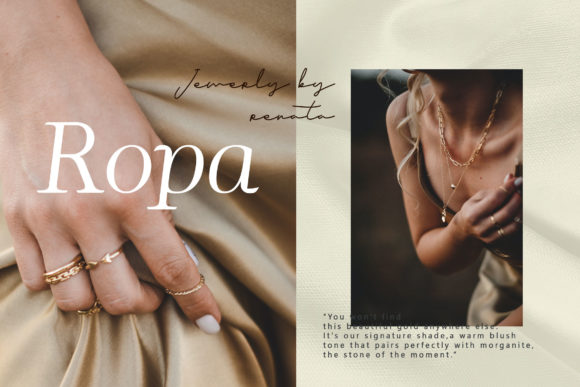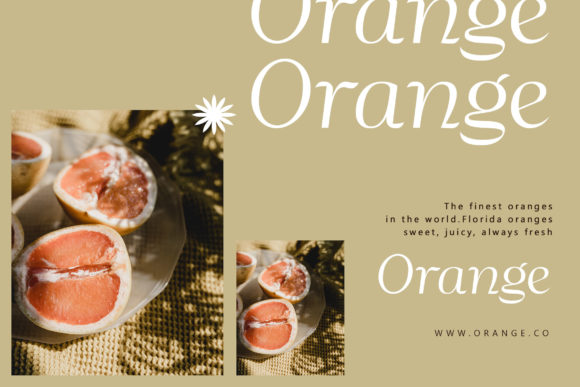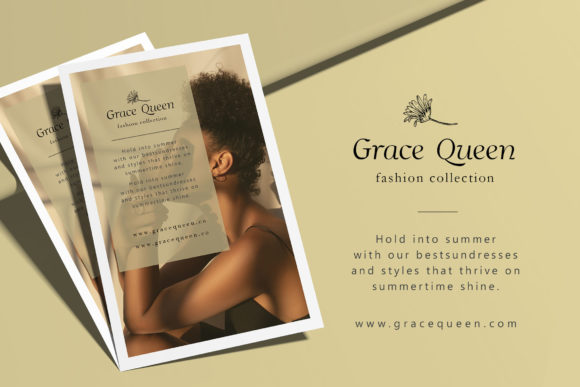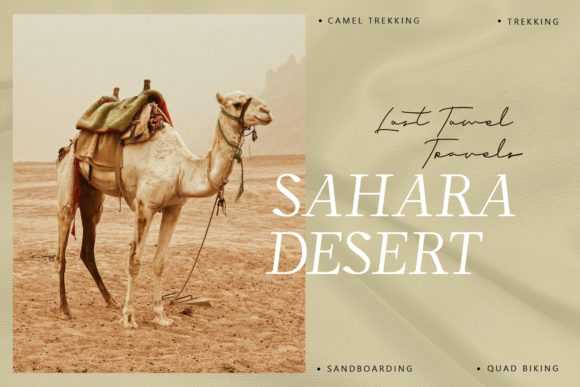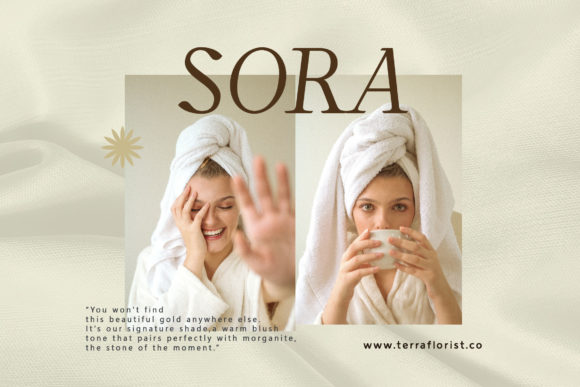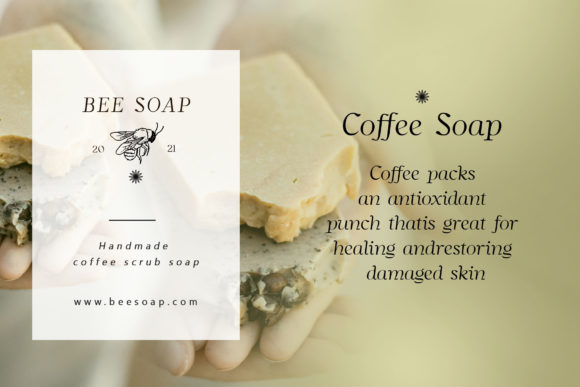
Introduction to Grace Queen Font
Grace Queen is an elegant and delicate serif font.
It has a classy and modern look that can be used for logos, branding, invitations, stationery, wedding designs, social media posts, and much more .
Key Features of Grace Queen Font